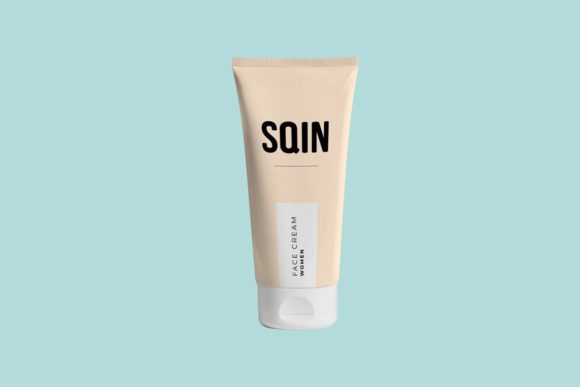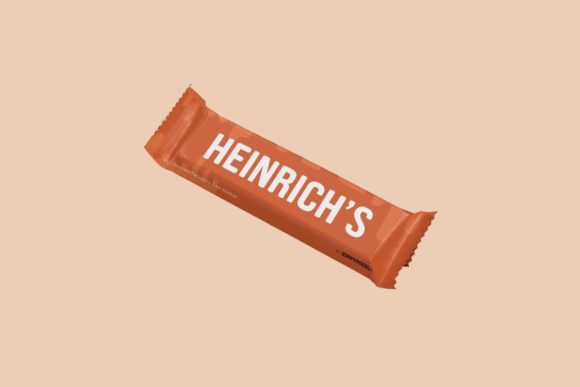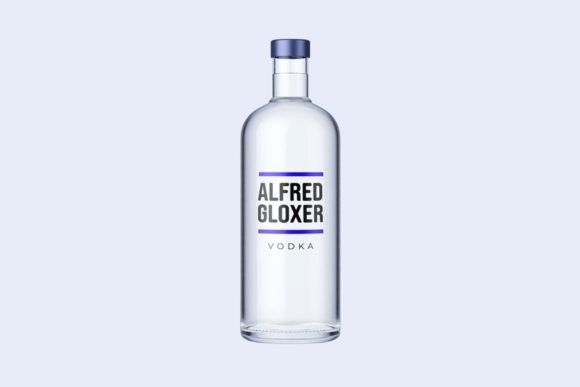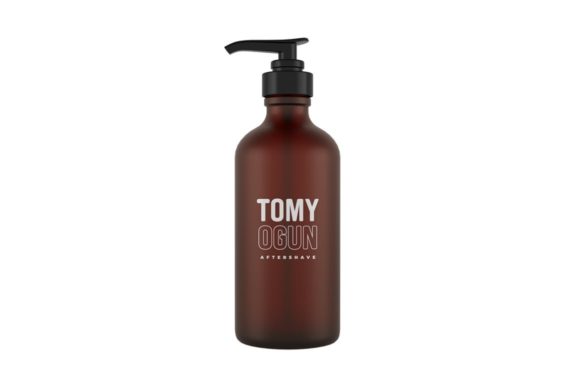
Berk Font: Elevate Your Designs with a Modern and Sleek Touch
In the world of typography, a font can make or break a design. When it comes to creating a lasting impression, the right font can elevate your project from ordinary to extraordinary. Berk Font is a modern display font that has been gaining popularity among designers and crafters alike. With its clean, thick lettering and minimalist aesthetic, Berk Font is the perfect addition to any design that requires a smart and cool touch.
What is Berk Font?
Berk Font is a contemporary display font designed to make a statement. Its thick, bold lettering and clean lines give it a modern and sleek appearance that is perfect for a variety of design applications. Whether you’re working on a logo, website, or print project, Berk Font is sure to turn heads. Its minimalist and techno-styled design makes it an excellent choice for designers who want to add a touch of sophistication to their work.
Key Features of Berk Font
• Clean and Thick Lettering: Berk Font features thick, bold lettering that is easy to read and visually appealing.
• Modern and Sleek Design: Its minimalist aesthetic makes it perfect for modern designs that require a touch of sophistication.
• Techno-Style: Berk Font’s techno-style design gives it a cutting-edge look that is perfect for tech-related projects.
• Versatile: Berk Font can be used for a variety of design applications, including logos, websites, and print projects.
Benefits of Using Berk Font
So, why should you choose Berk Font for your next design project? Here are just a few benefits of using this modern display font:
• Instant Credibility: Berk Font’s sleek and modern design gives your project an instant credibility boost.
• Attention-Grabbing: Its thick, bold lettering is sure to grab attention and make your project stand out.
• Easy to Read: Despite its bold design, Berk Font is easy to read, making it perfect for projects that require a clear and concise message.
• Customizable: Berk Font can be easily customized to fit your project’s specific needs, making it a versatile choice for designers.
How to Use Berk Font in Your Designs
So, how can you incorporate Berk Font into your designs? Here are a few ideas to get you started:
• Logos: Use Berk Font to create a bold and memorable logo that will help your brand stand out.
• Websites: Add Berk Font to your website to give it a modern and sleek touch.
• Print Projects: Use Berk Font in your print projects, such as brochures, flyers, and business cards, to add a touch of sophistication.
• Social Media Graphics: Use Berk Font to create eye-catching social media graphics that will help your brand stand out.
Tips for Pairing Berk Font with Other Fonts
When pairing Berk Font with other fonts, it’s essential to choose fonts that complement its modern and sleek design. Here are a few tips to keep in mind:
• Pair with Sans-Serif Fonts: Pair Berk Font with other sans-serif fonts, such as Arial or Helvetica, to create a cohesive look.
• Use Serif Fonts for Contrast: Use serif fonts, such as Times New Roman or Georgia, to create contrast and add visual interest.
• Experiment with Script Fonts: Experiment with script fonts, such as Lobster or Pacifico, to add a touch of elegance to your design.
In conclusion, Berk Font is a modern display font that is perfect for designers and crafters who want to add a smart and cool touch to their projects. Its clean, thick lettering and minimalist aesthetic make it a versatile choice for a variety of design applications. Whether you’re working on a logo, website, or print project, Berk Font is sure to elevate your design and make a lasting impression.